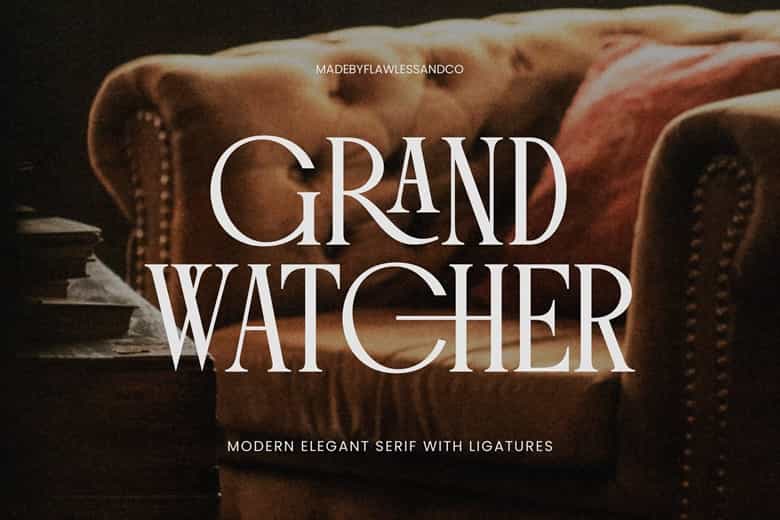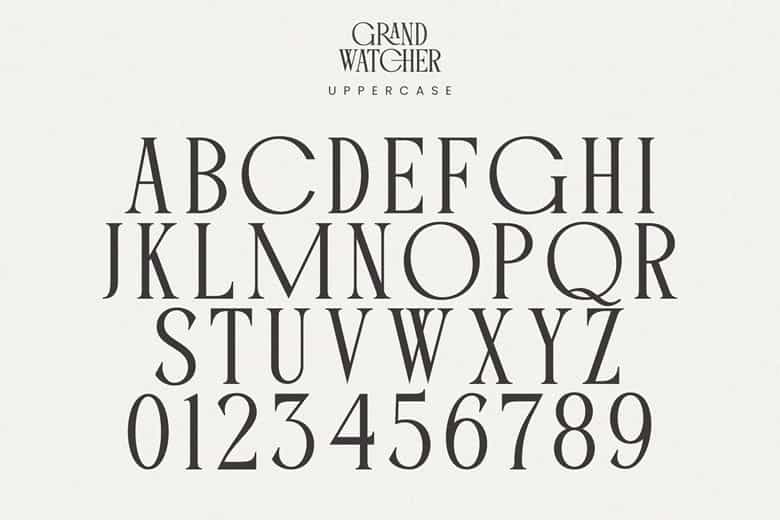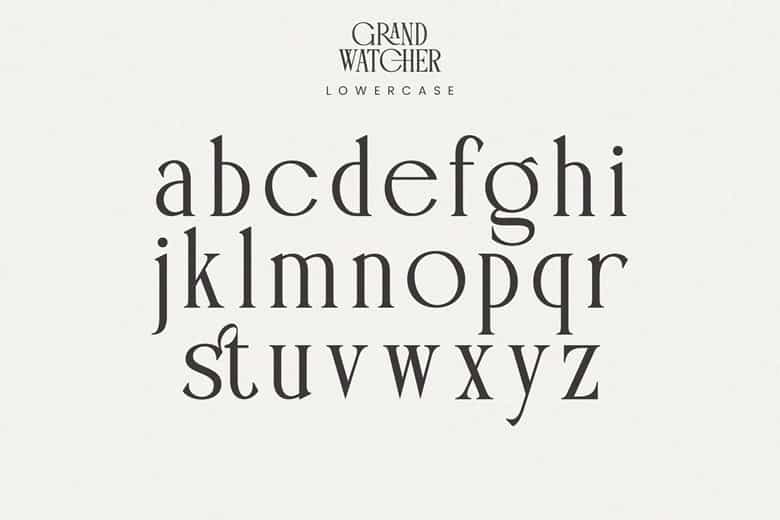
Grand Watcher is a sophisticated serif typeface that is both classic in appearance, and innovative in design. Grand Watcher offers a clean serif look with finely detailed lettering and ligatures and looks great in any setting. This font is appropriate for any graphics design like brand identity, wedding invitation, product packaging, branding, logo, etc.